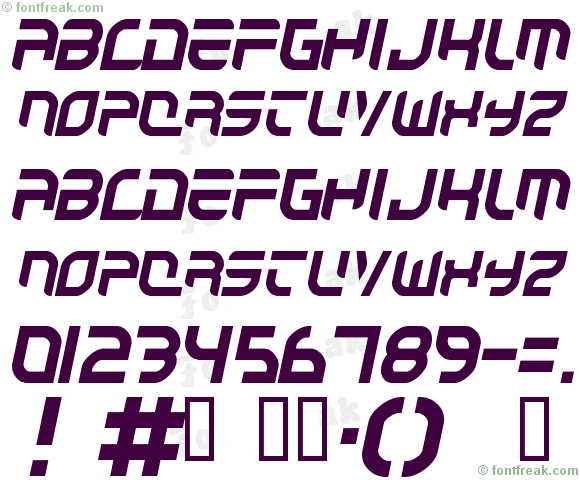
Autobahn
The Autobahn font, designed by Pizzadude, is a striking display typeface that showcases a unique blend of modernity and artistic flair. As a decorative font, it captures attention with its bold and dynamic character forms, making it a standout choice for various creative projects. The visual style of the Autobahn font is characterized by its thick stroke weight and minimal contrast, which gives it a robust appearance while maintaining legibility. The spacing between characters is well-balanced, allowing for smooth reading even in larger text blocks.
This font is particularly well-suited for a range of applications. It excels in creating compelling movie posters, where its boldness can draw viewers in. Additionally, the Autobahn font is a great choice for restaurant menus, adding a contemporary touch to the dining experience. Its unique aesthetic also makes it ideal for promotional materials like flyers and brochures, where it can effectively capture the essence of the brand. Graphic designers, small business owners, and content creators will find this font especially beneficial for projects that require an eye-catching yet professional presentation.